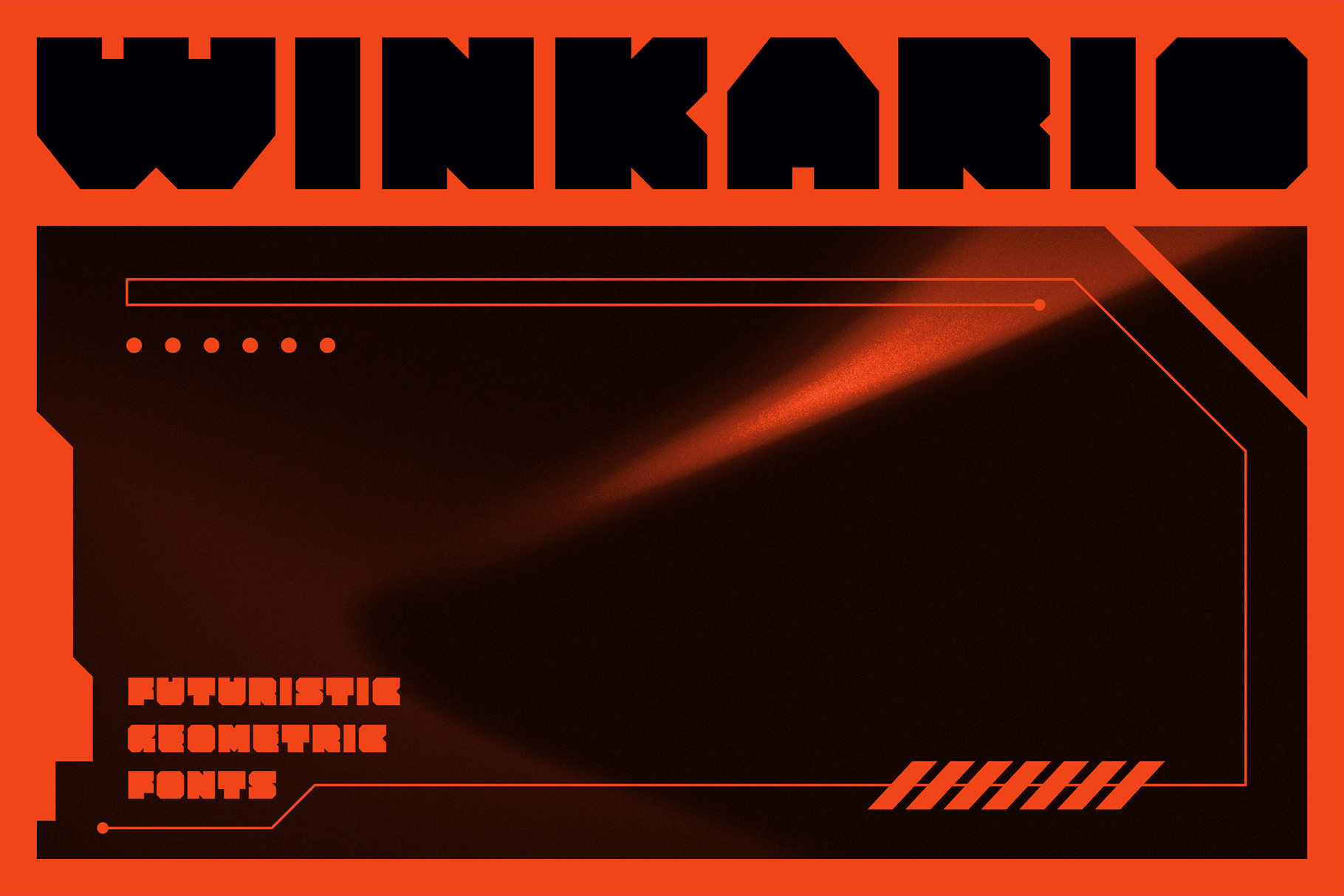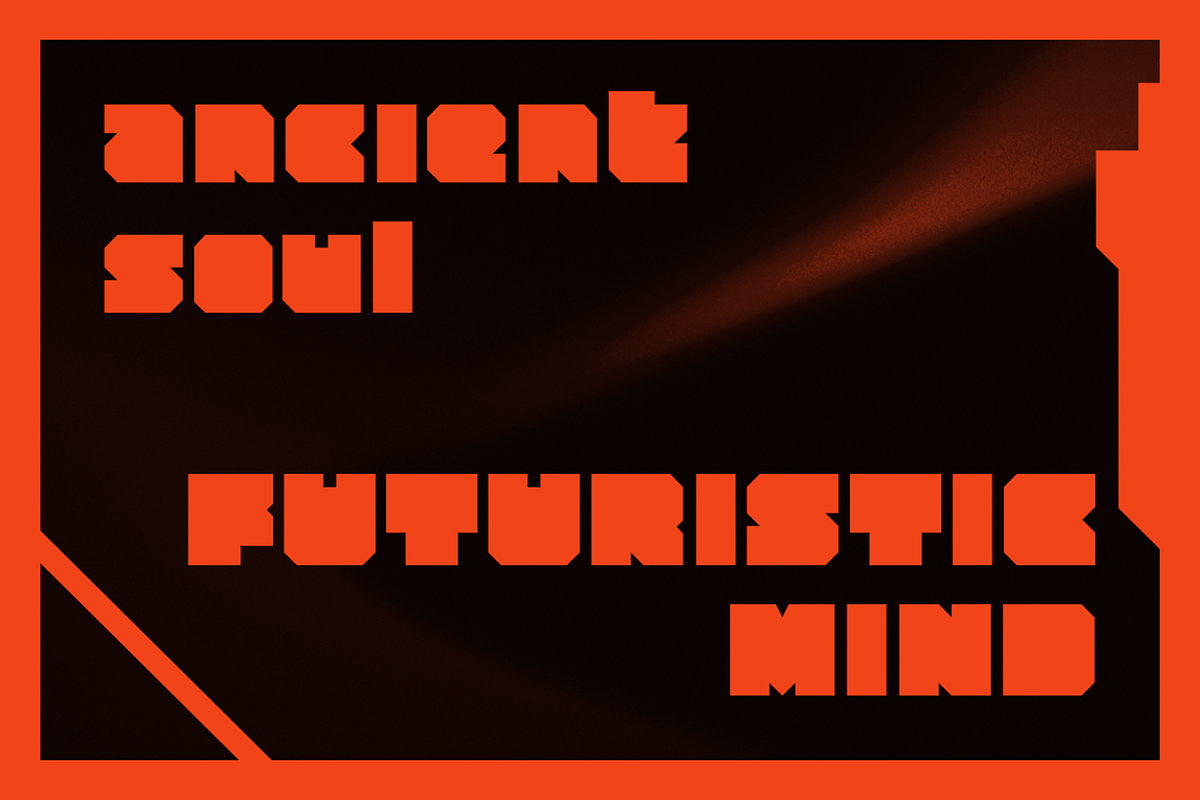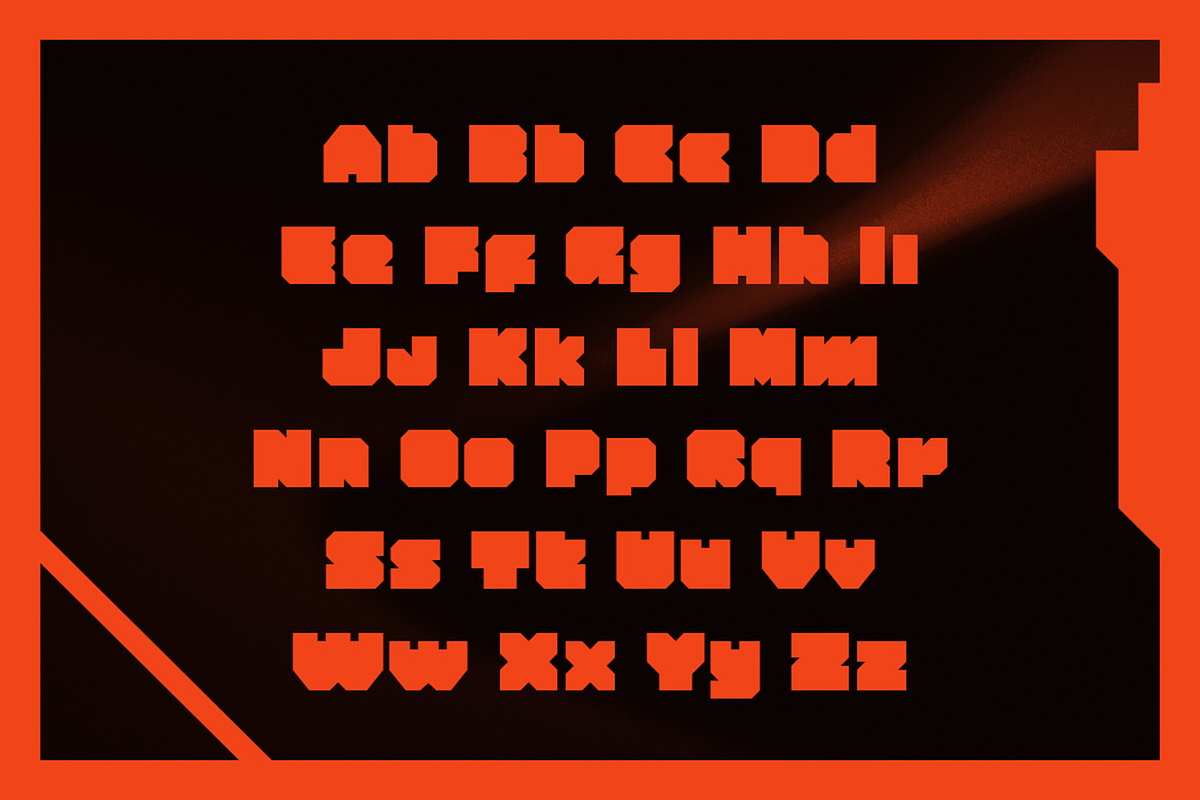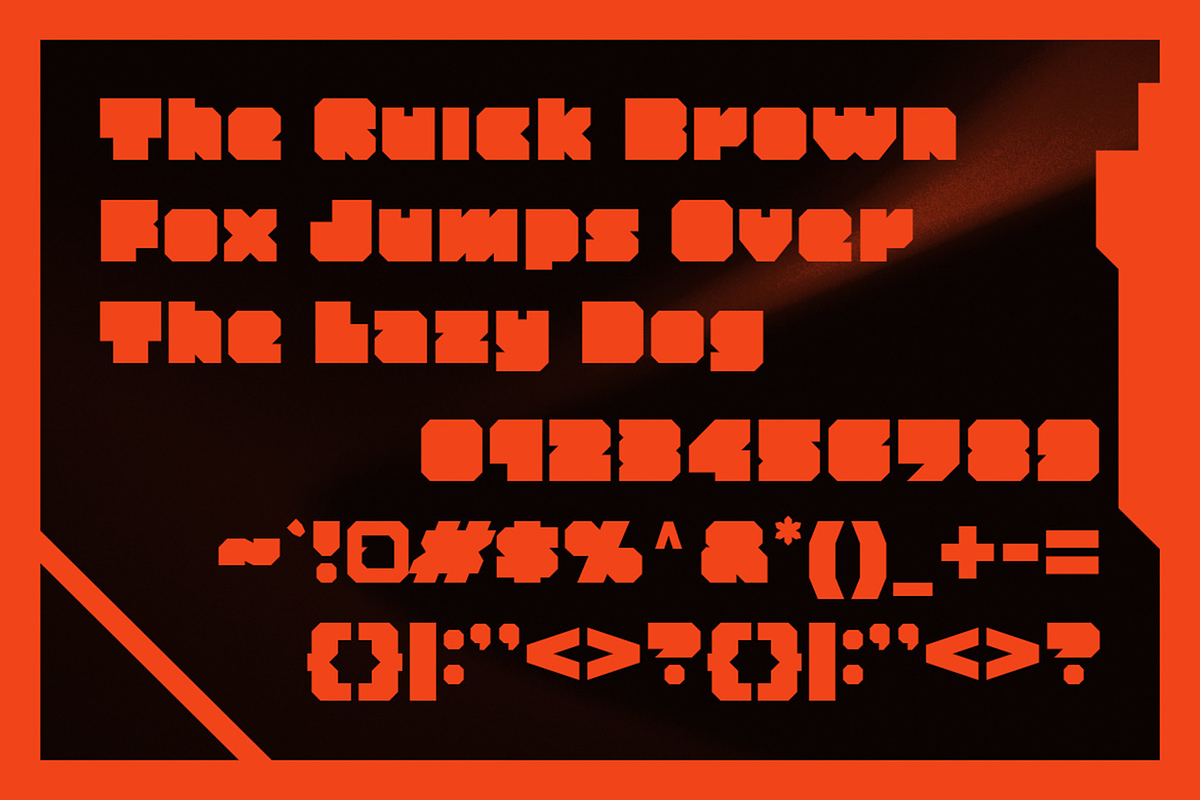
Winkario - Geometric Block Fonts
Forget the curves, embrace the corners! Winkario isn't your typical font; it's a bold leap into the uncharted territory of future typography. Inspired by the stark geometry and experimental spirit of the final frontier, Winkario is the missing piece for your most groundbreaking designs.